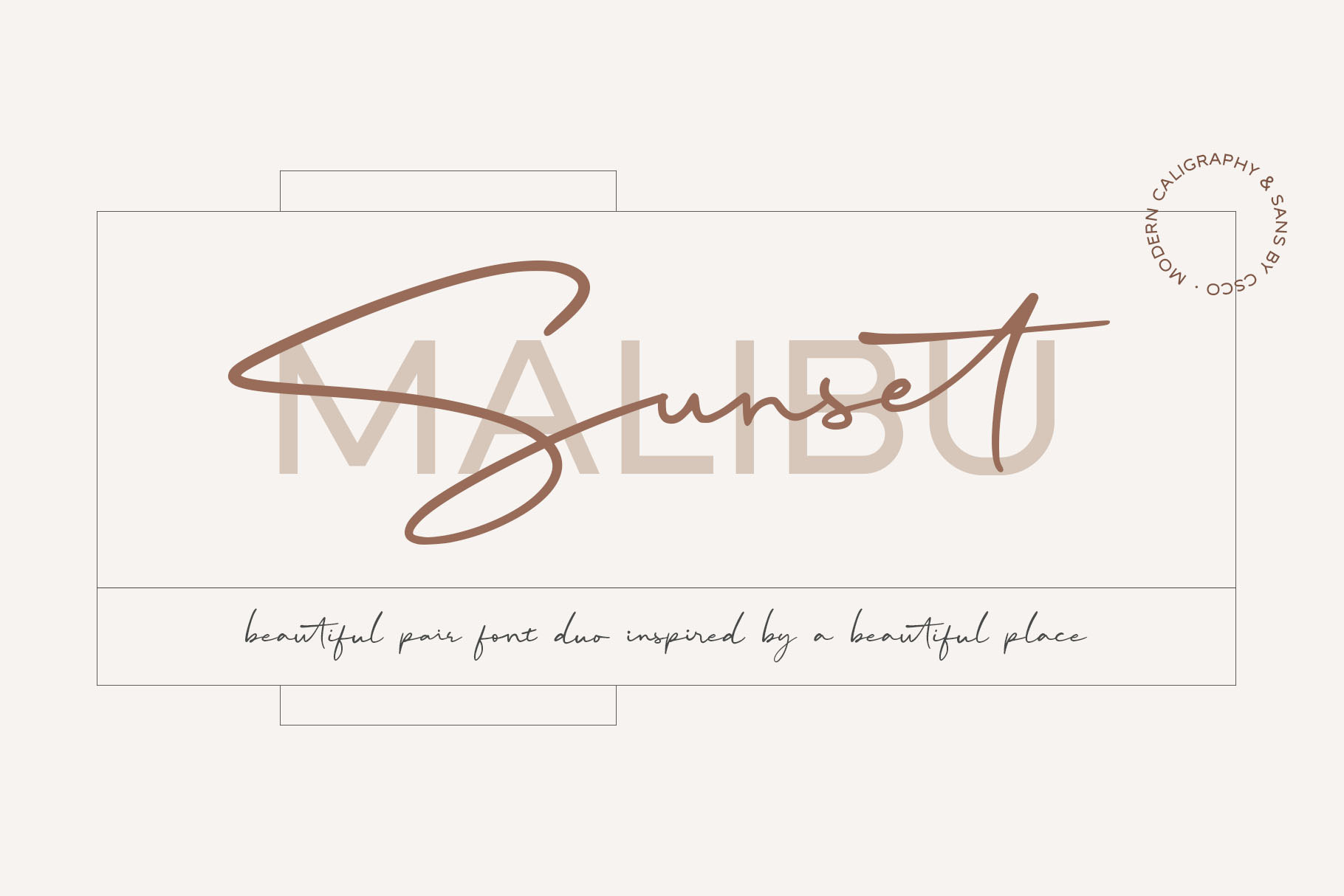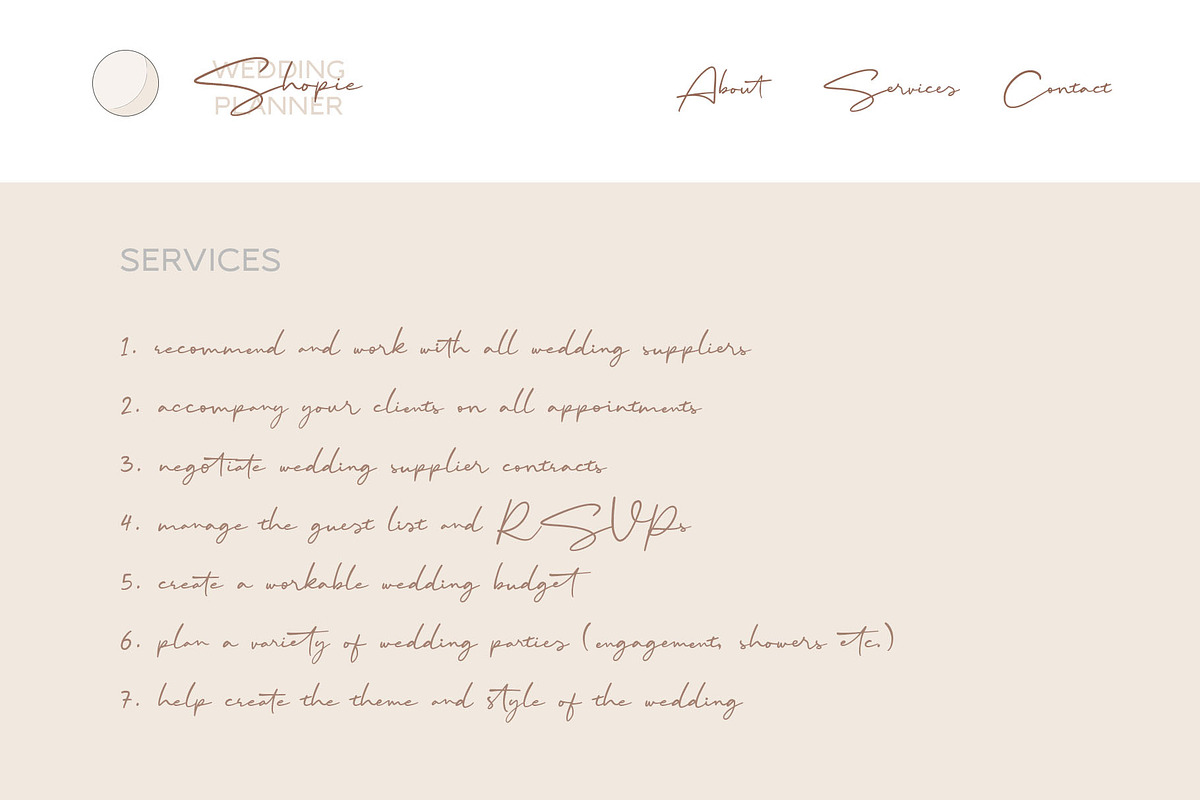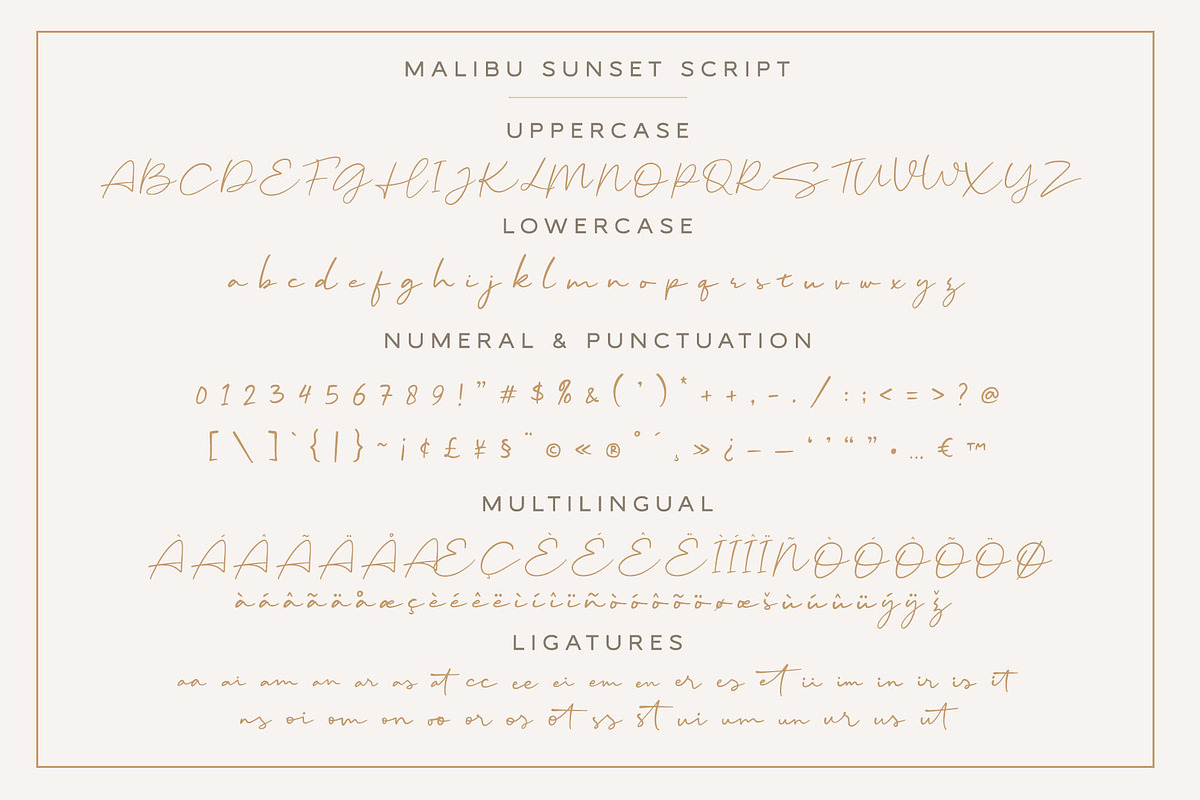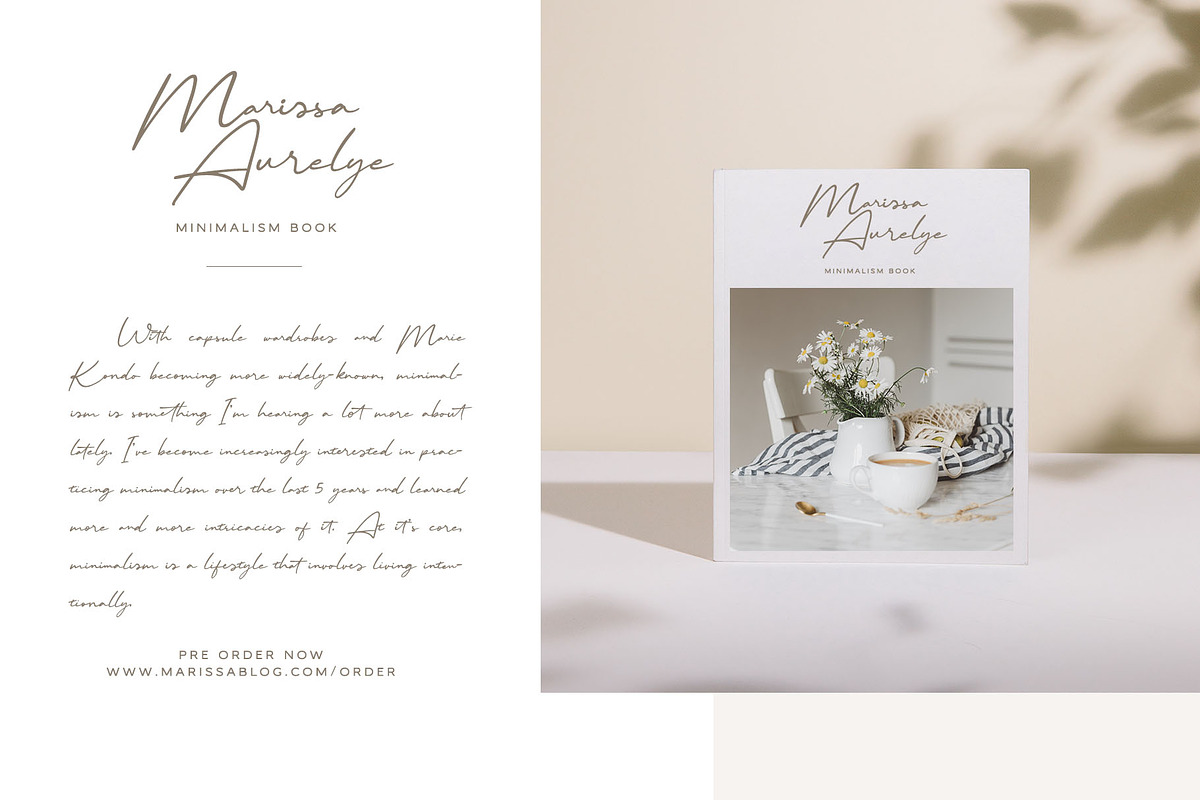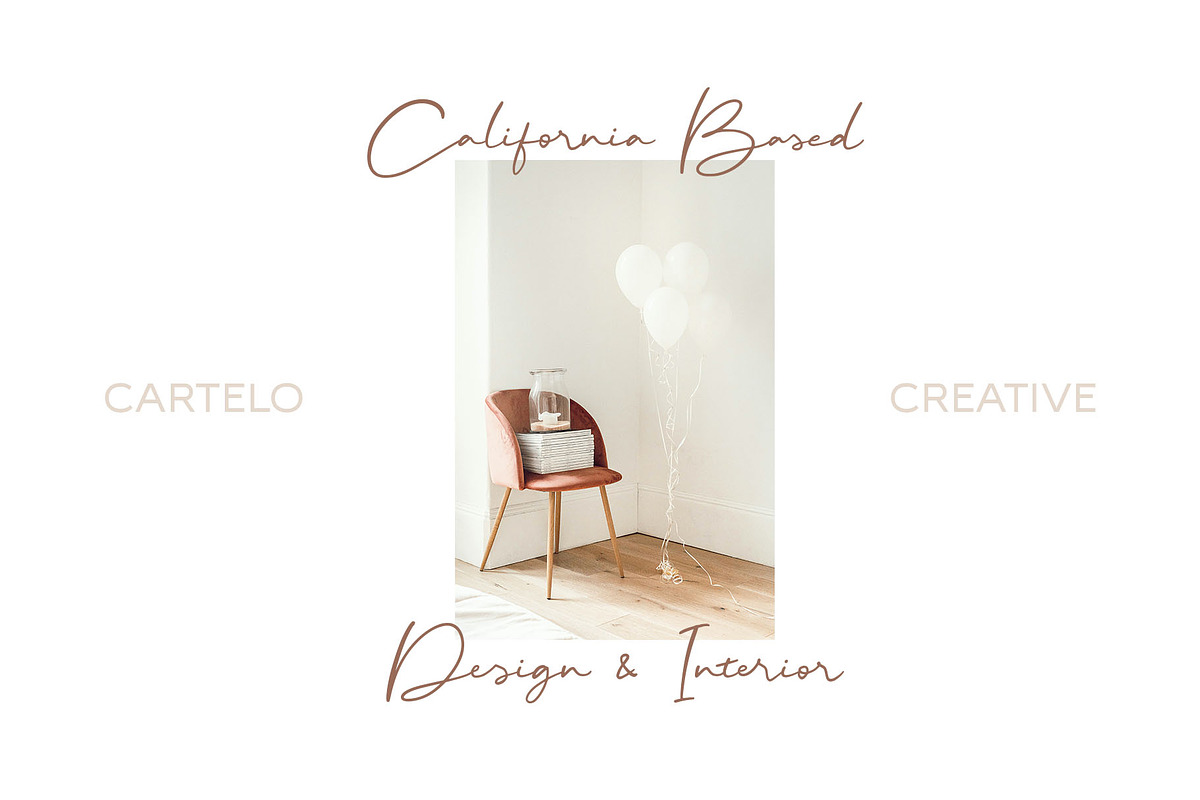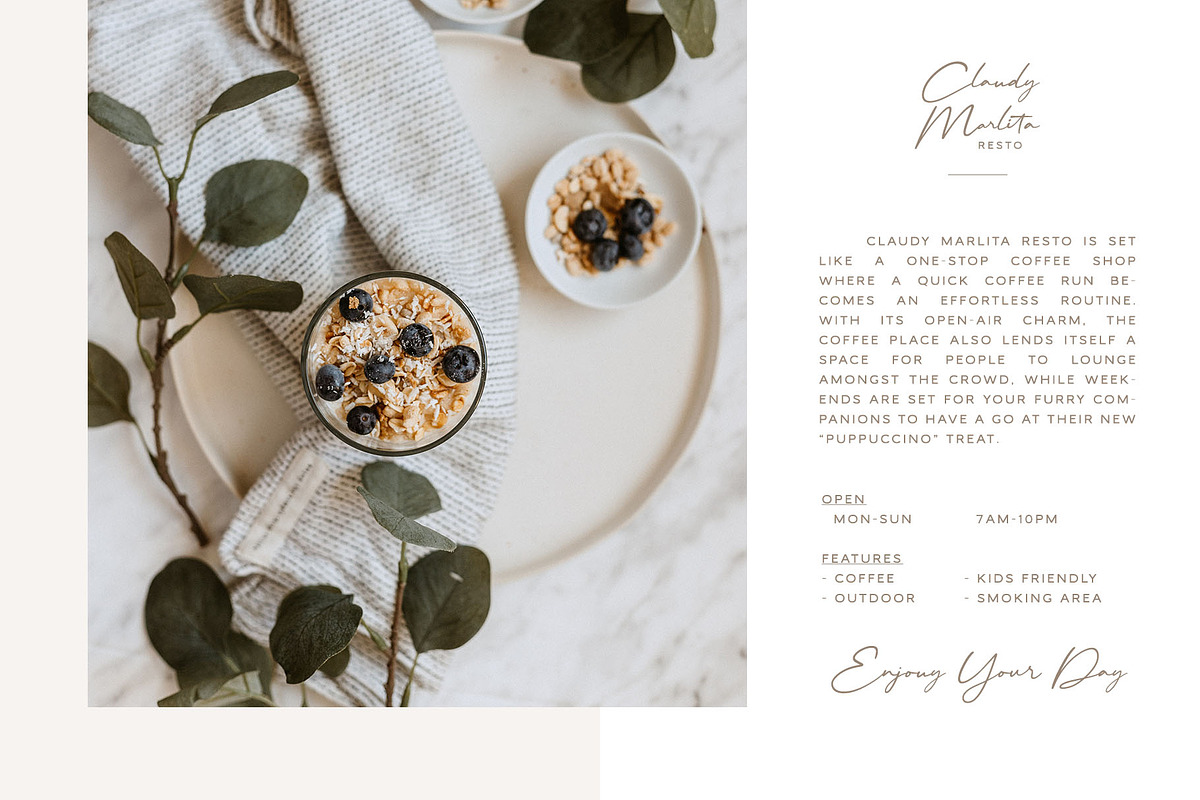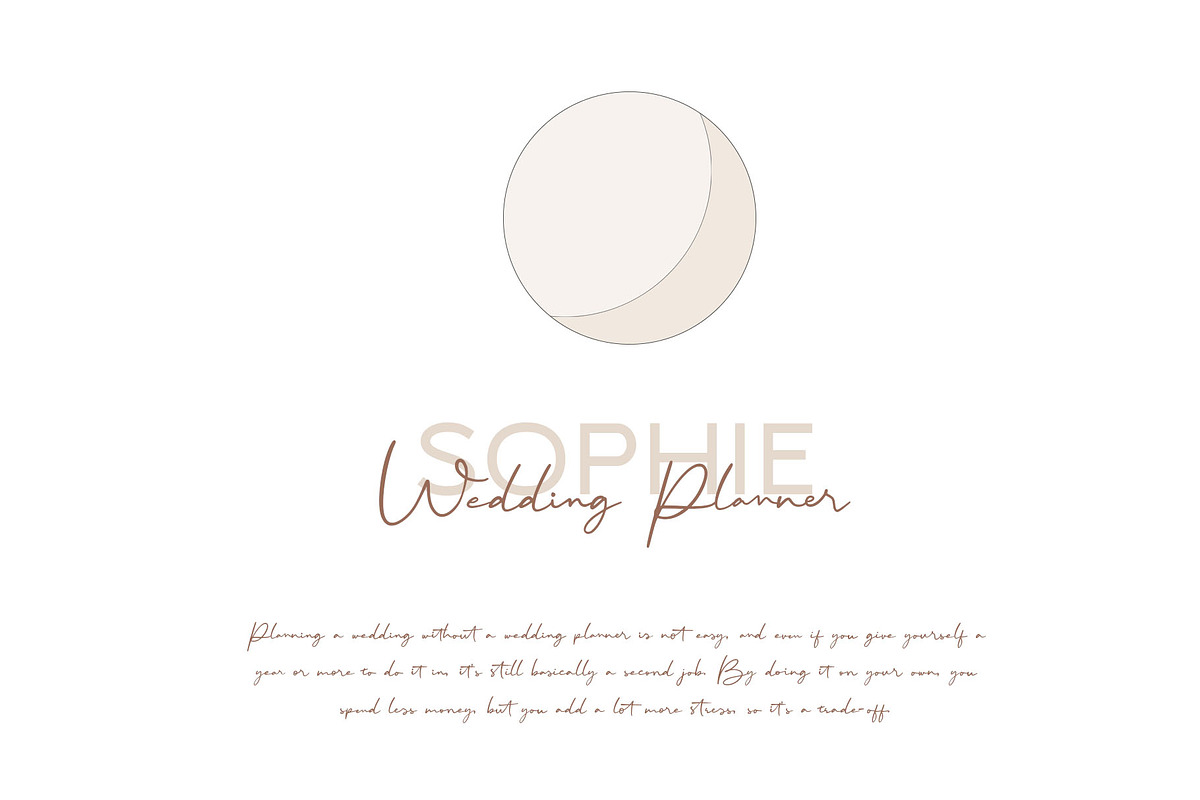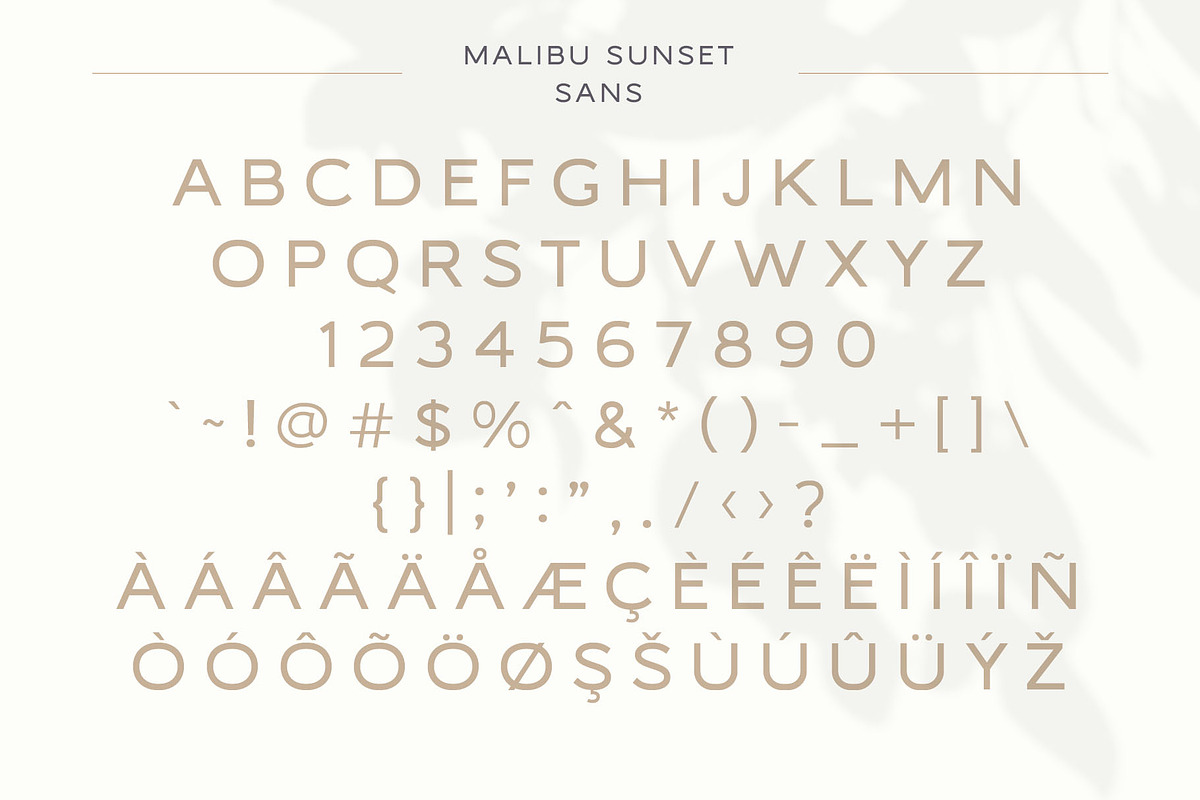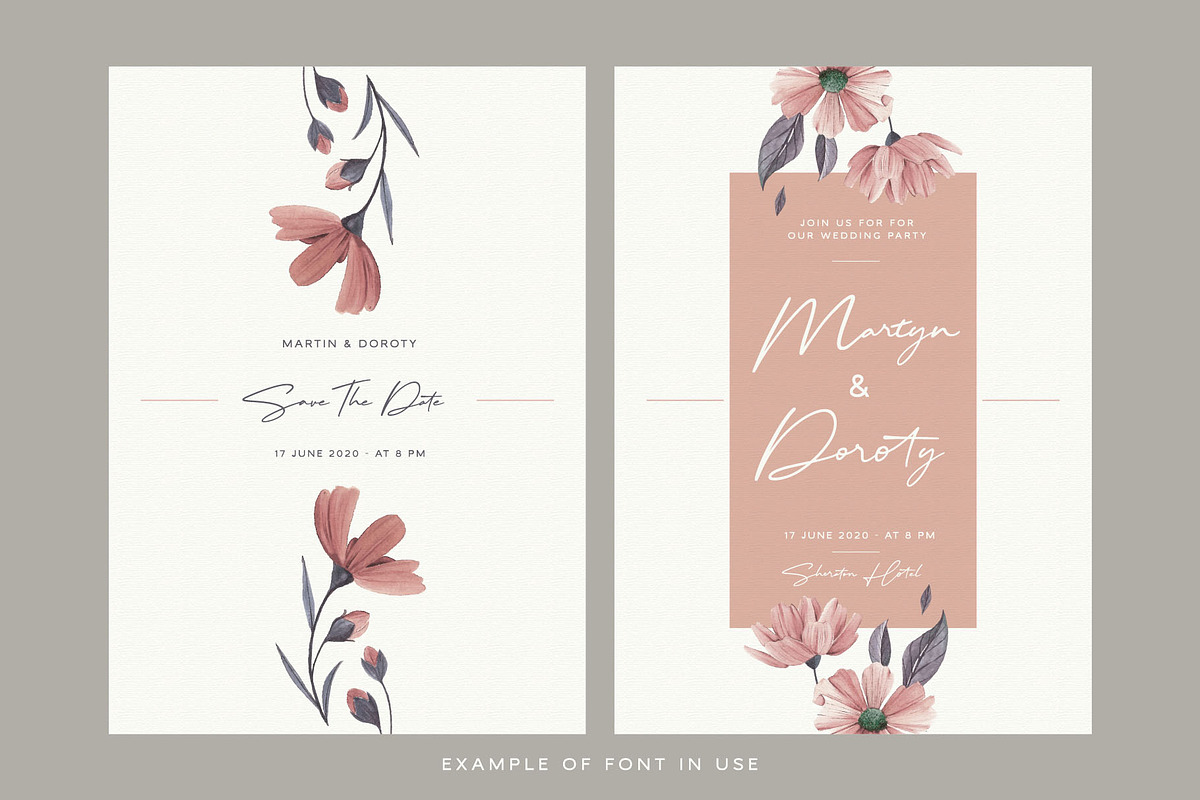
Malibu Sunset - A Beautiful Font Duo
Introducing New Font : Malibu Sunset - A Beautiful Font Duo
Malibu Sunset - A Beautiful Font Duo is a combination of a beauty handwritten script font & modern sans serif font. Malibu Sunset - A Beautiful Font Duo will work perfectly for fashion, e-commerce brands, trend blogs, wedding boutiques or any business that wants to appear upscale and chic.
Malibu Sunset - A Beautiful Font Duo also Suitable for Logo, greeting cards, quotes, posters, branding, name card, stationary, design title, blog header, art quote, typography, art, modern envelope lettering or book design, happening style like handdrawn design or watercolor design theme, craft design, any DIY project, book title, or any purpose to make your art/design project look pretty and trendy.
- Allcaps, Uppercase & Lowercase
- Special Ligatures for Malibu Sunset Script & Italic (aa ai am an ar as at cc ee ei em en er es et ii im in ir is it ns oi om on oo or os ot ss st ui um un ur us ut)
- Accents/Multilingual characters (AÀÁÂÃÄÅCÇDÐEÈÉÊËIÌÍÎÏNÑOØÒÓÔÕÖUÙÜÚÛWYÝŸỲŸÆŒßÞ)